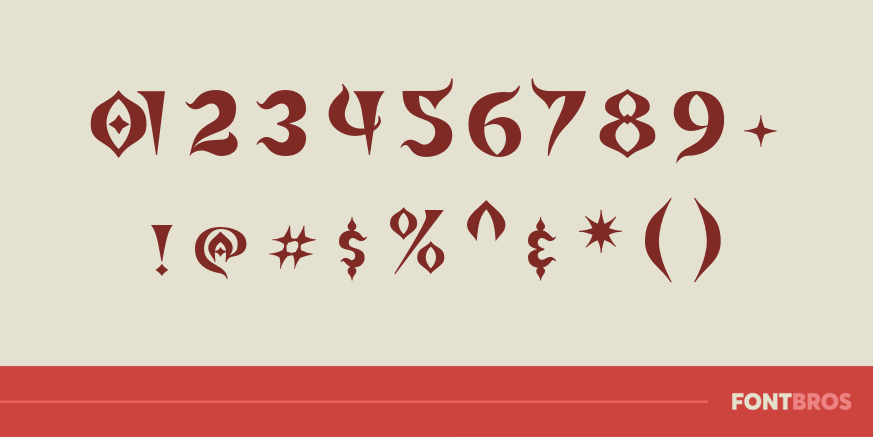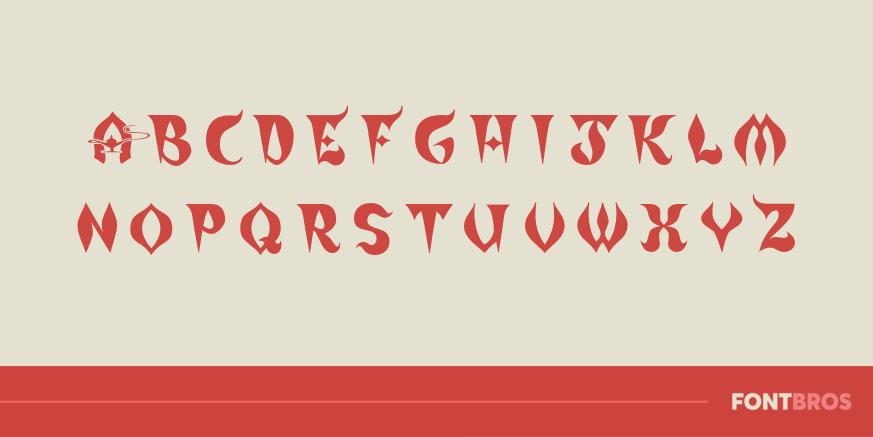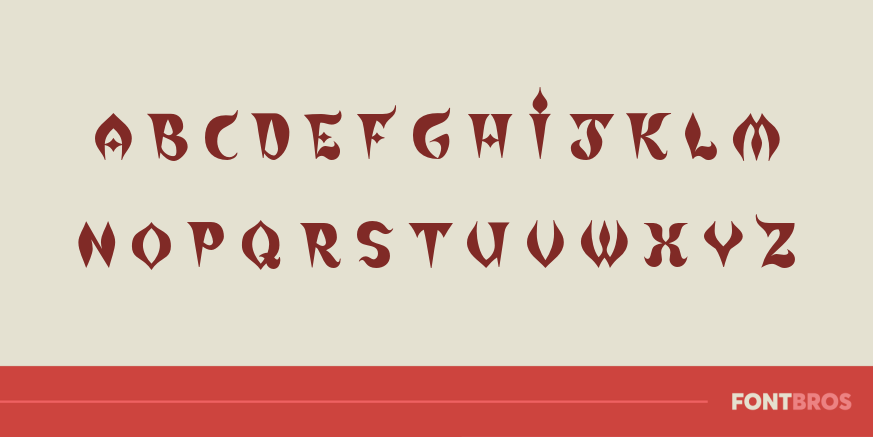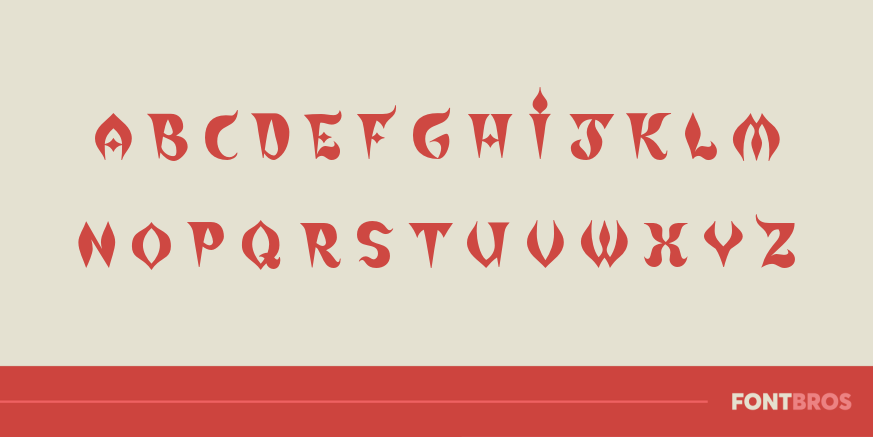
Mirage Bazaar
Font Family by Font Diner
Like a fine curry at an Arabian sunset, Mirage Bazaar delights with with classic flavor! So grab your fez and your chai and enjoy!